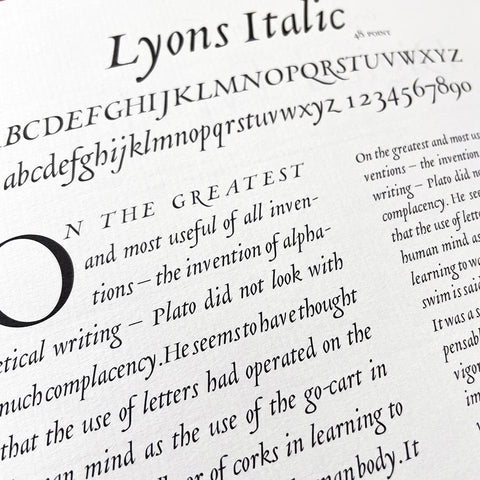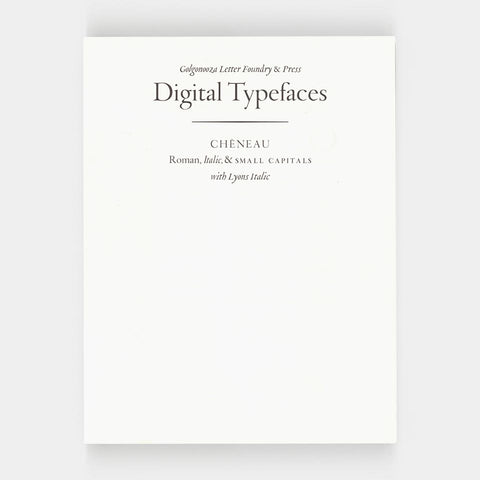
Golgonooza Letter Foundry & Press: Digital Typefaces
Chêneau, a digital typeface by Dan Carr, was designed to work as a text face complete with italic, small caps, and Lyons Italic, a companion type designed to stand alone. The face was fit without kerning tables (just like metal type) as an experiment to show how few kerning pairs are actually necessary in a well-fit font. Very interesting and rarely seen.